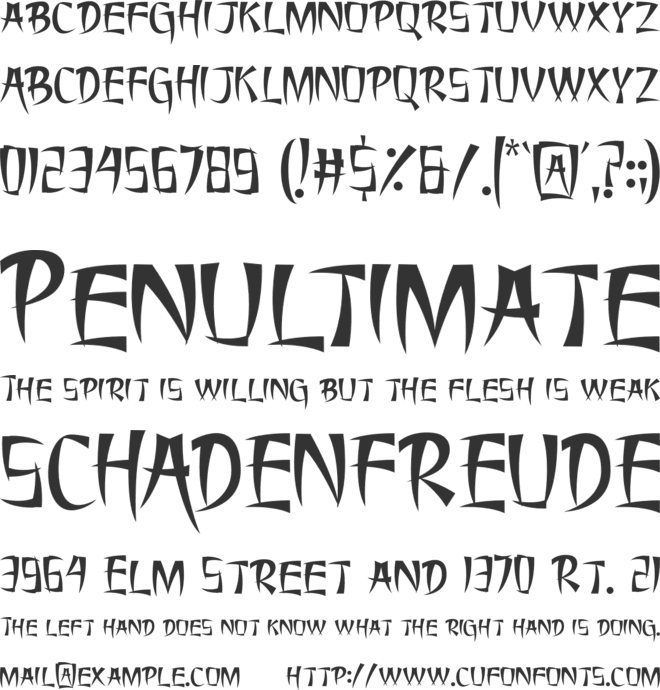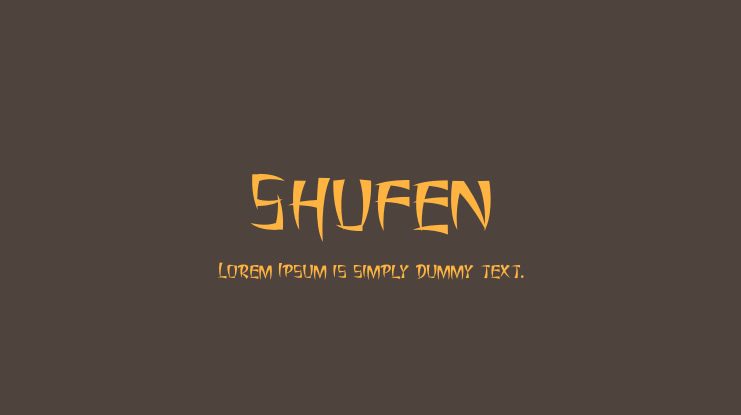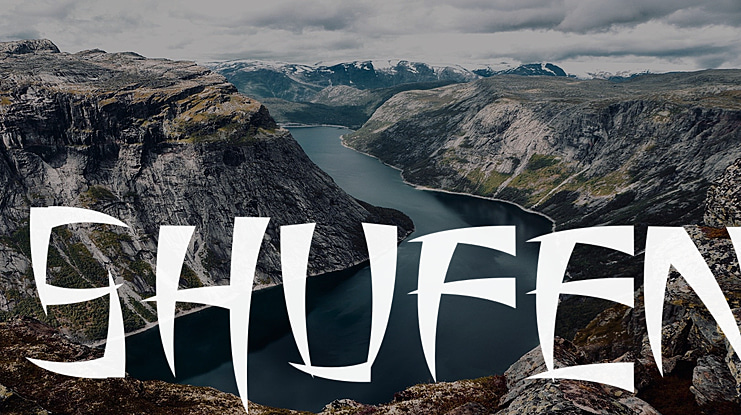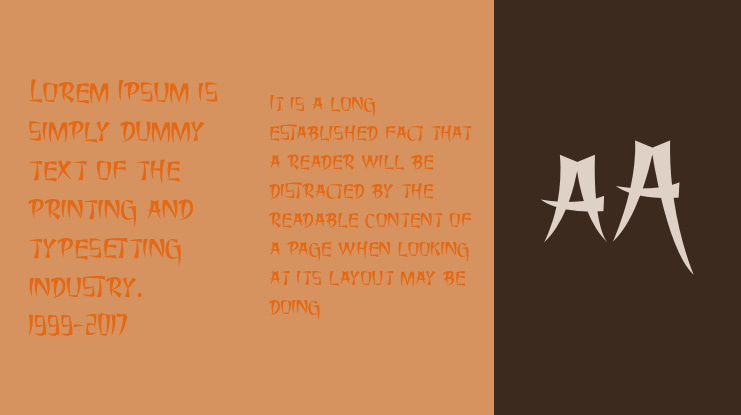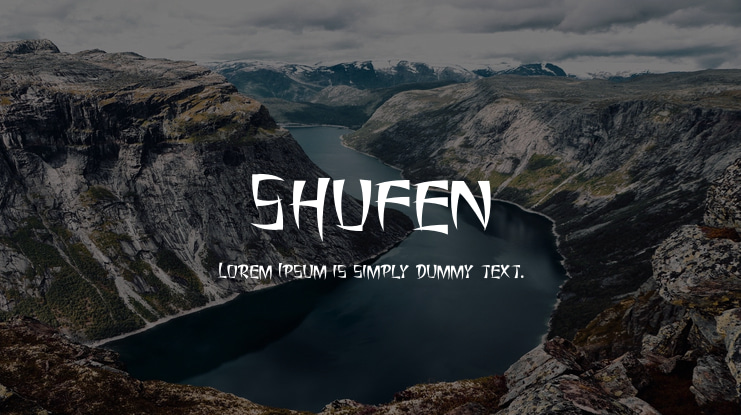
Shufen Font
Shufen is an awesome chinese inspired display font. It has a great readability and will add a striking touch to any design!It will look awesome on any T-shirt, print, or restaurant brand!Full Version Download Here :https://typefactory.co/product/shufen-a-chinese-font/https://www.creativefabrica.com/product/shufen/ref/501262/